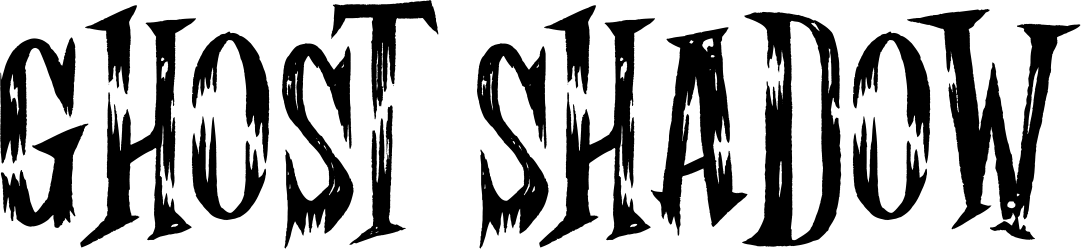
Ghost Shadow Font
If you want to create a scary and brutal vibe for the context of a movie, poster, book, or Halloween, you need a Halloween font. We can recommend Ghost Shadow from that category, which can bring that mood you are looking for easily.
This font comes with a fantastic collection of characters containing the uppercase of the alphabet, the numbers, and the punctuation marks except for the lowercase.